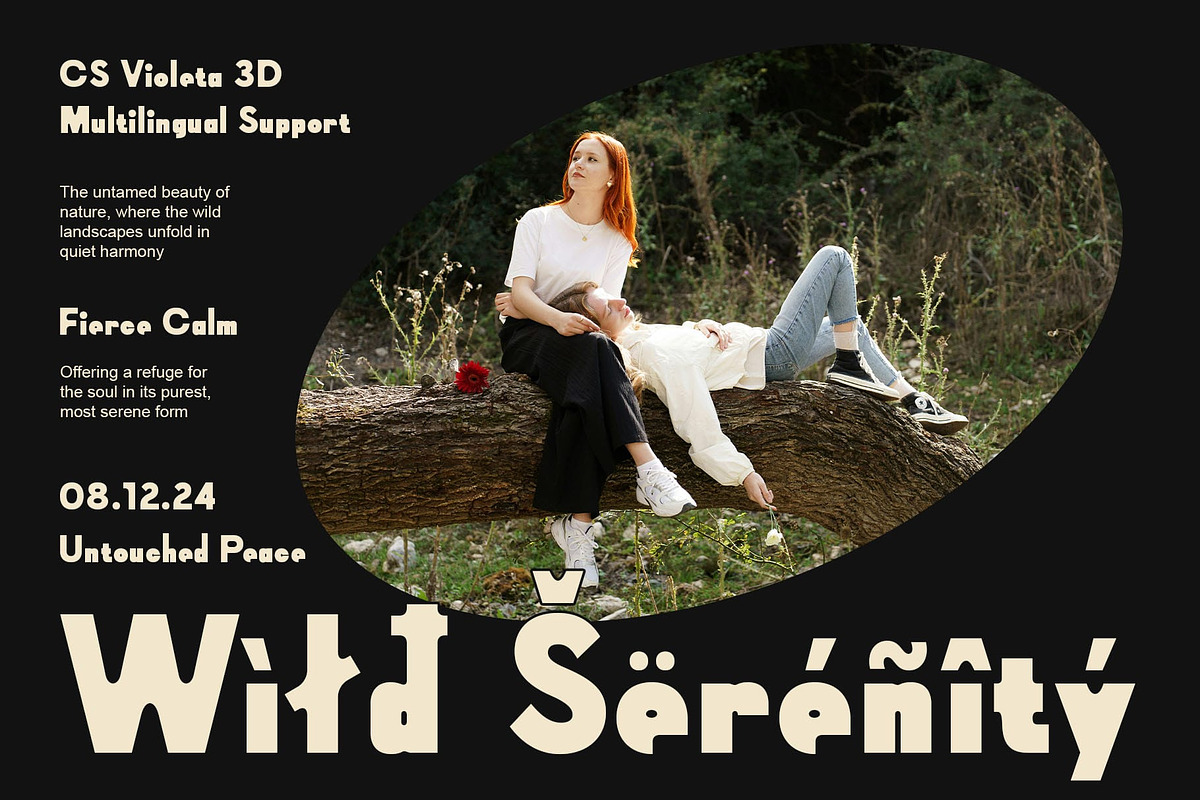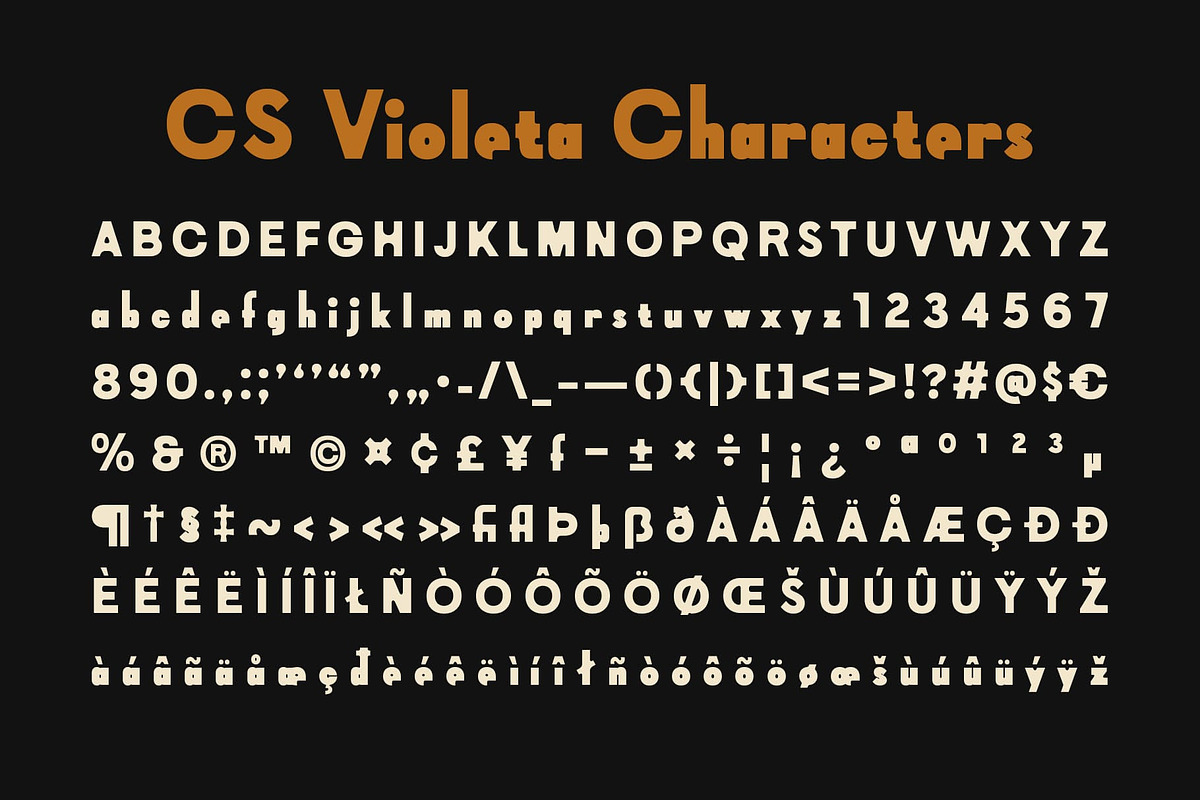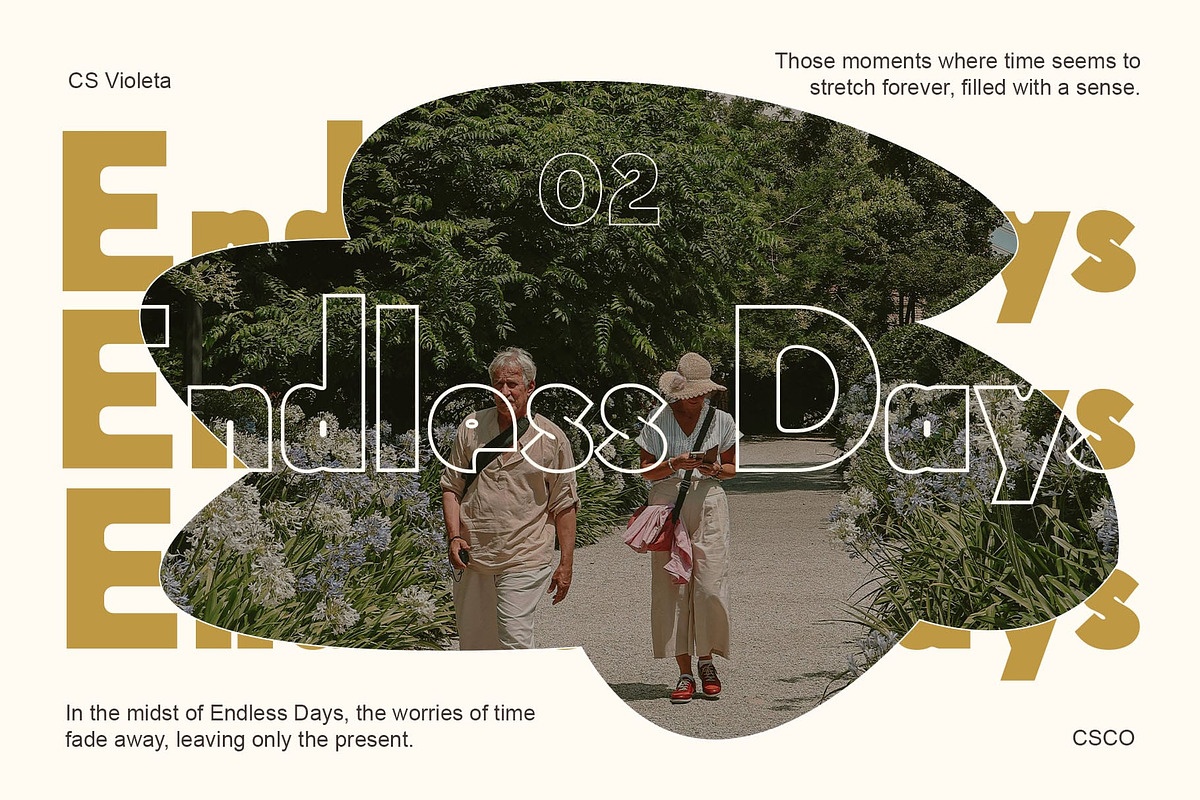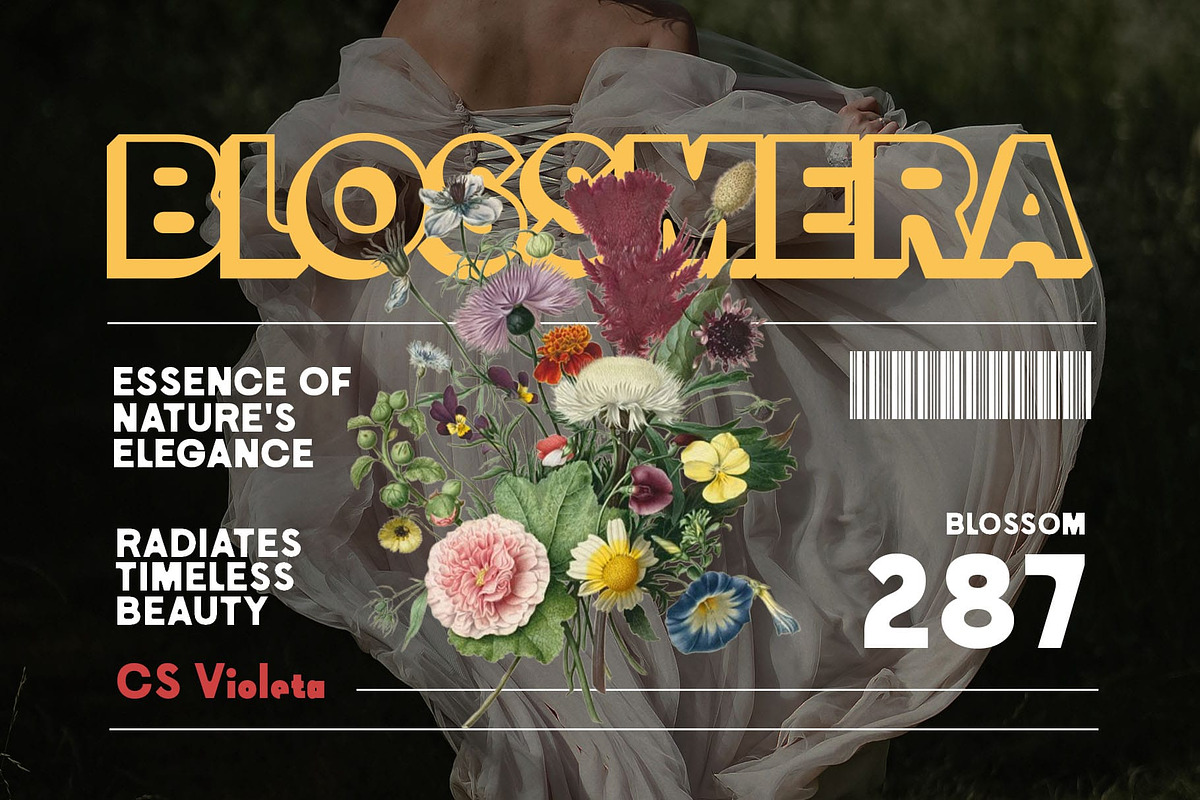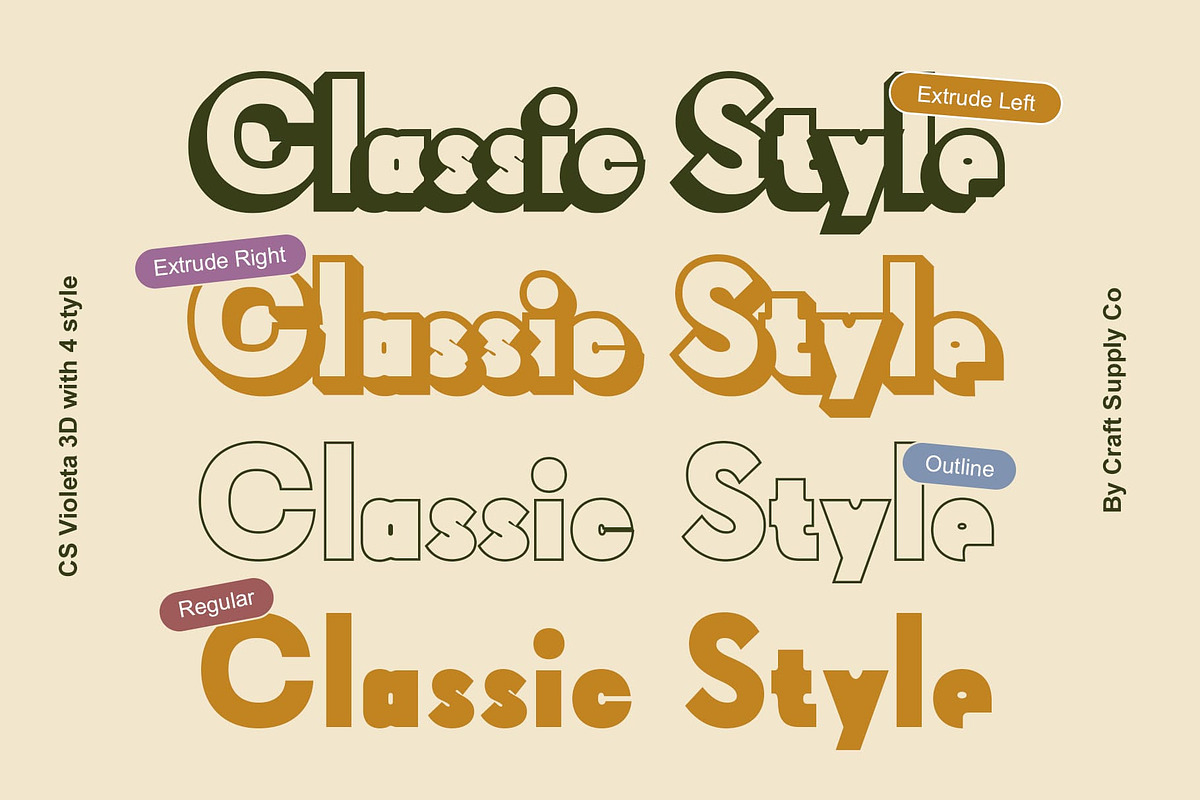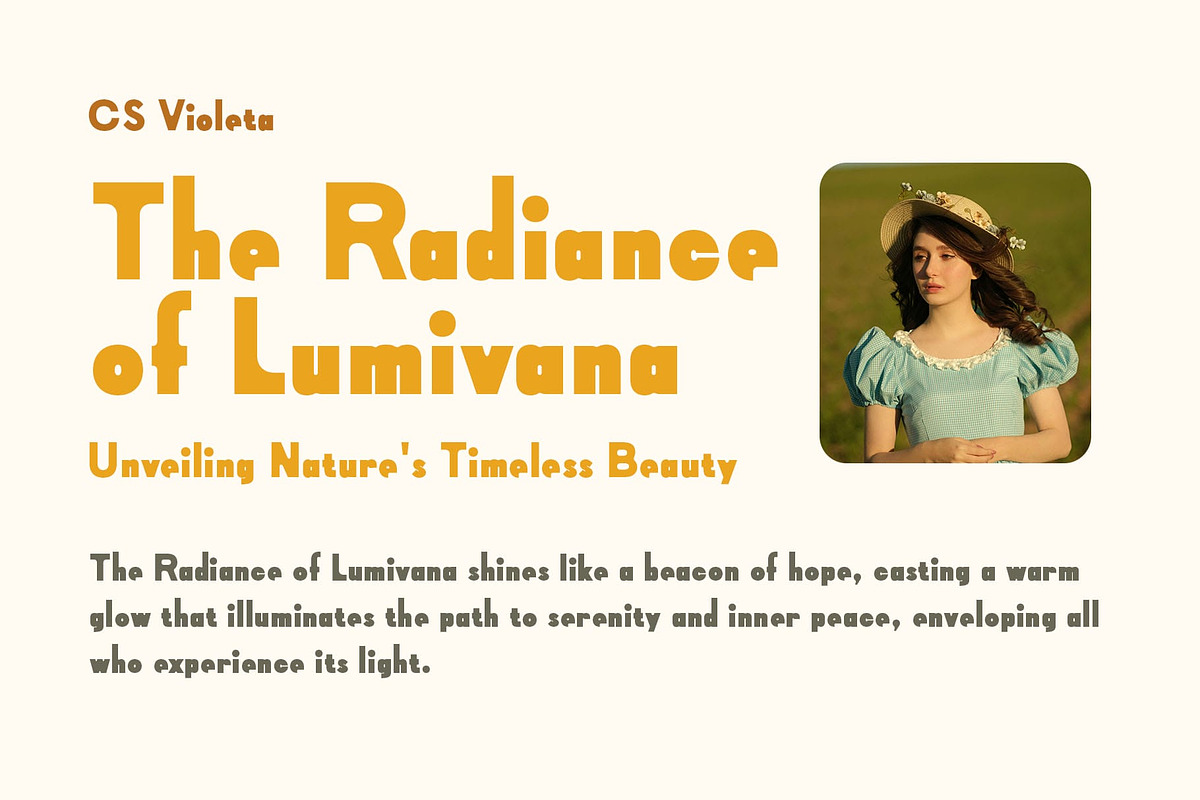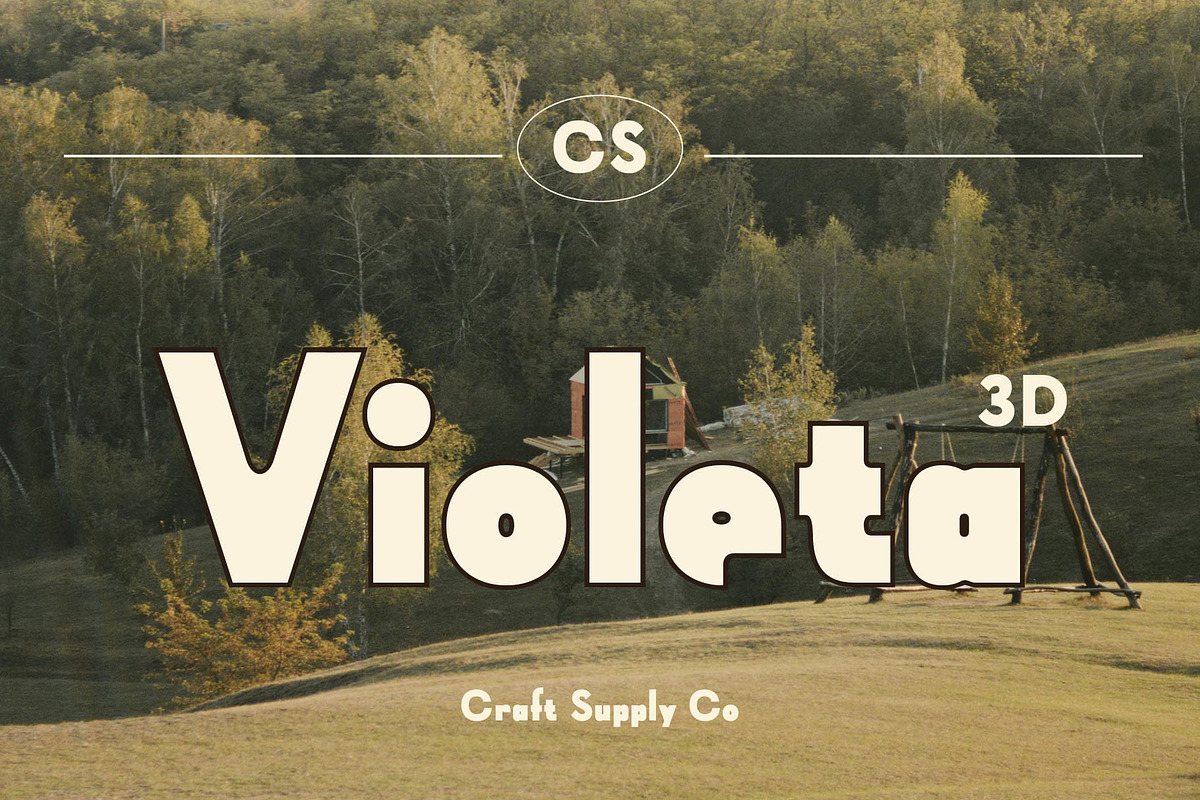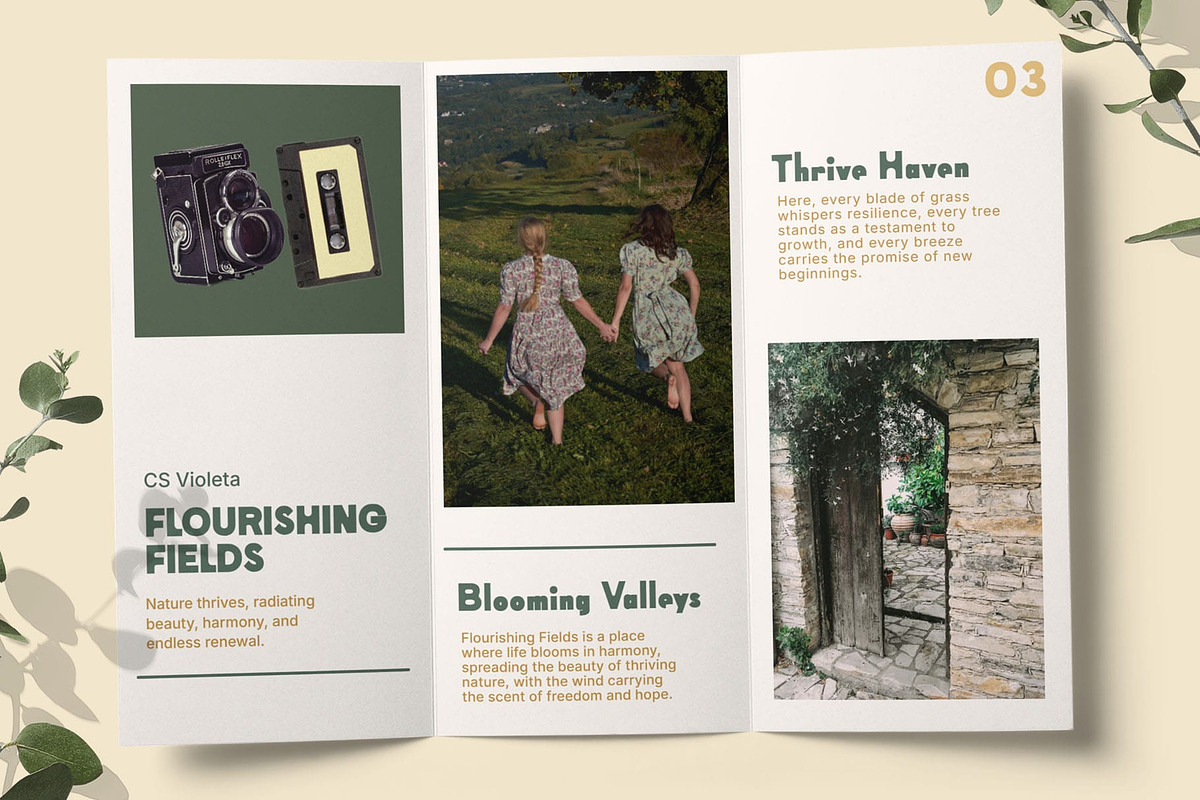
CS Violeta 3D
CS Violeta 3D: A Bold Retro Vibe with Dynamic Depth
Classic Sans-Serif with Retro 90s Inspiration CS Violeta 3D is a bold, classic sans-serif font that captures the energy and style of the 90s, bringing a nostalgic yet contemporary edge to your designs. With its clean, strong lines and distinctive letterforms, this font evokes the boldness of retro typography, making it perfect for projects that need a striking visual impact. Whether you’re creating vintage posters, branding materials, or digital media content, CS Violeta 3D offers a timeless and energetic look.
Dynamic 3D Effect for Visual Impact The 3D effect in CS Violeta adds a dynamic and visually captivating layer, bringing depth and dimension to every letter. This effect enhances the font’s bold appearance, making it stand out in any design. Whether used in headlines, logos, or posters, the 3D elements create a sense of movement, drawing attention and giving a modern twist to the retro-inspired design.
Perfect for Bold, Energetic Designs Ideal for designs that demand boldness and energy, this 3d font is a perfect fit for projects such as vintage-inspired posters, event graphics, branding, and more. Its retro 90s vibe, combined with the dramatic 3D effect, makes it a standout choice for designs that need to make a statement and catch the viewer’s eye.
- CS Violeta Regular
- CS Violeta Outline
- CS Violeta Extrude Right
- Cs Violeta Extrude Left